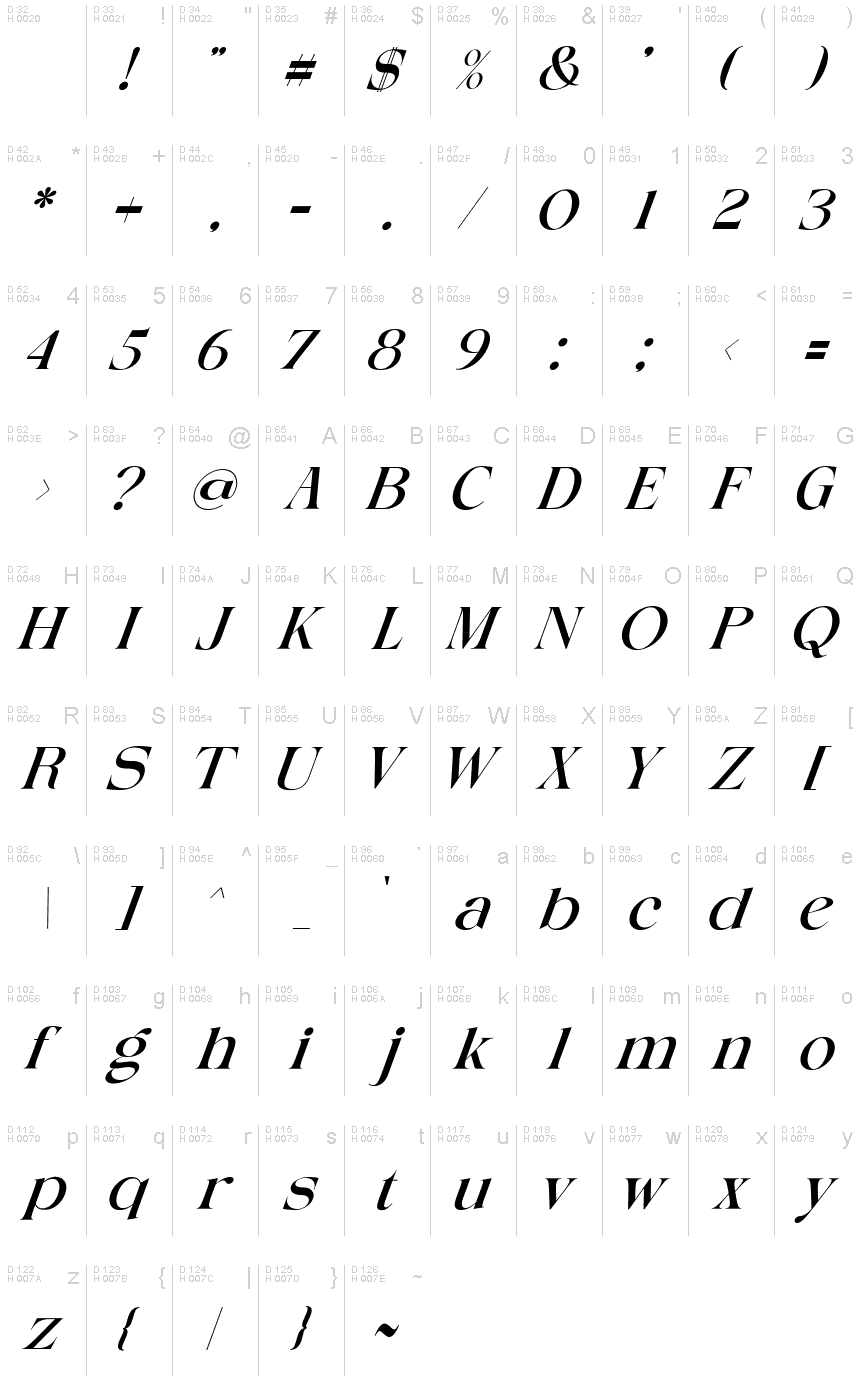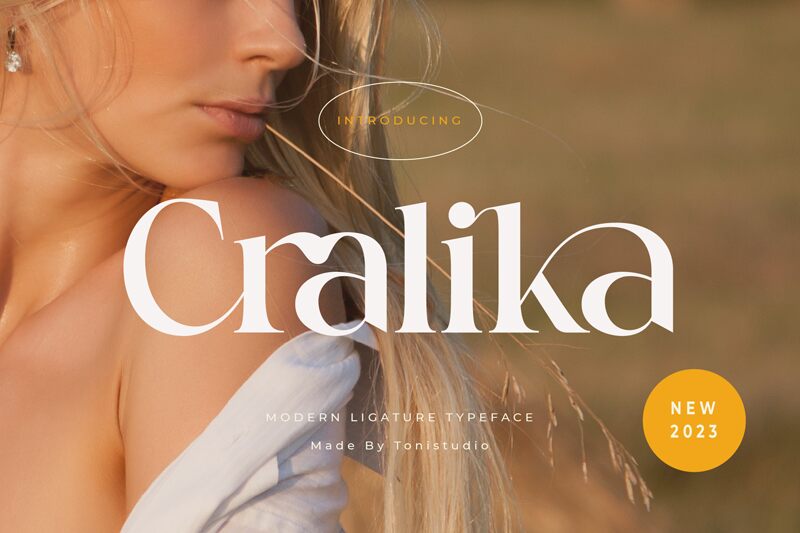
Cralika Italic
Cralika Italic, a semi-bold serif typeface from the Cralika font family, is an exquisite creation by ToniStudio. Its fluid, slanted form exudes elegance and a dynamic energy that instantly captures attention. With serifs that are pronounced yet refined, Cralika Italic offers a sophisticated aesthetic that bridges the gap between traditional charm and contemporary flair.
The typeface's semi-bold weight ensures legibility while providing a substantial presence on the page. This makes it particularly versatile for an array of design applications, from editorial layouts to branding initiatives. Whether used in headings or body text, Cralika Italic adds depth and character to the written word.
The unique style of Cralika Italic is ideal for designers seeking to imbue their projects with a sense of artistry and distinction. Its potential extends across various media, including print materials such as book covers and magazines, as well as digital platforms like websites and e-books.